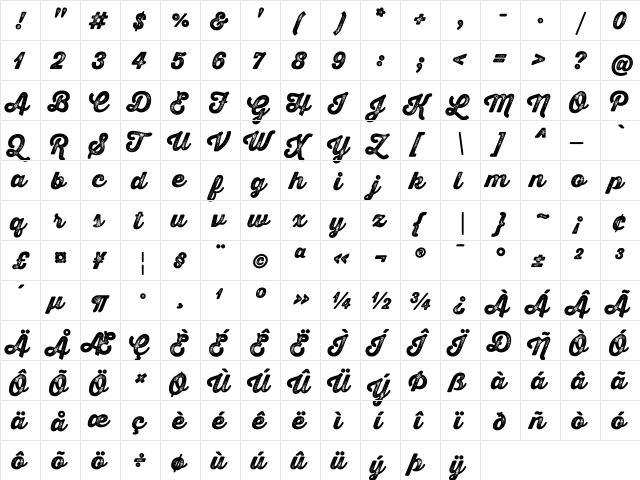
Thirsty Rough Blk Two Regular
Design Context for Thirsty Rough Blk Two Typeface
Thirsty Rough Blk Two embraces imperfection — its rough, textured character adds raw authenticity to designs that want to feel lived-in and unconventional.
Suited to punk-influenced zines, underground music branding, streetwear, and raw, anti-corporate design.
Pro Tip: Pair Thirsty Rough Blk Two with intentionally raw or lo-fi design elements. Fighting against it with overly polished surroundings will undermine its personality.